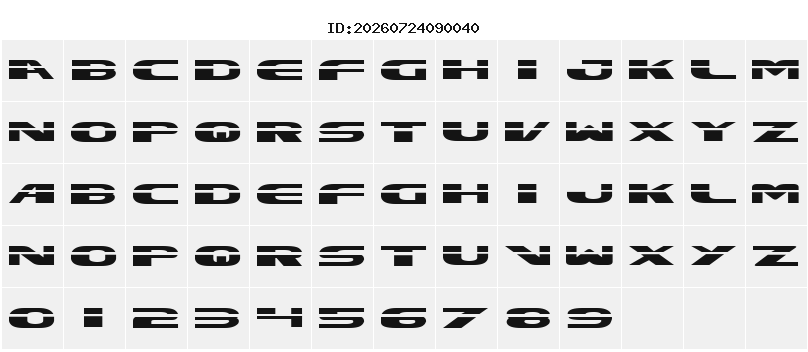
Excelerate Straight Preview
• Font Name: Excelerate Straight
• Font Style: Expanded
• Full Font Name: Excelerate Straight
About Excelerate Straight.ttf
Excelerate Straight.ttf is a modern, elegant sans-serif font designed for ultimate readability and visual harmony. Perfect for branding, headlines, web design, and print materials.